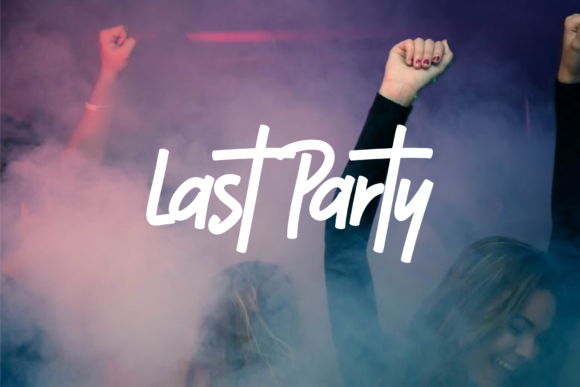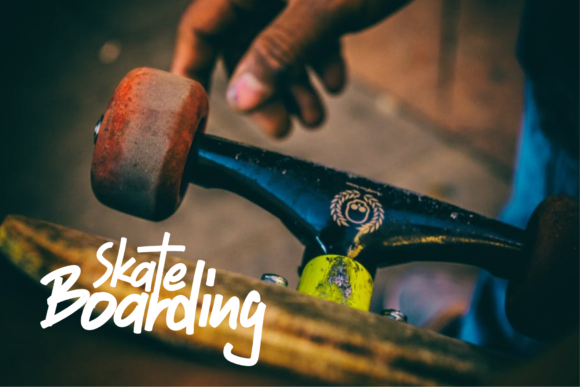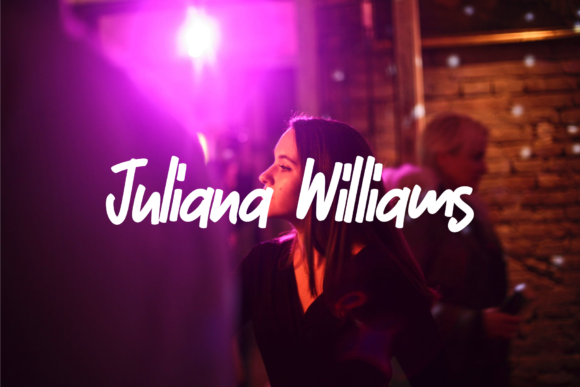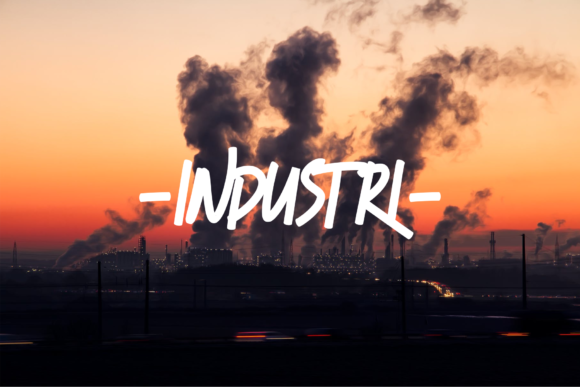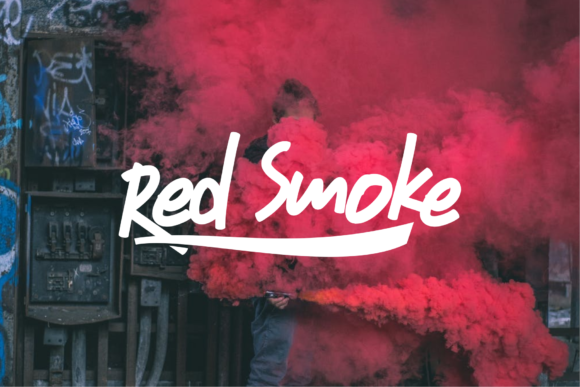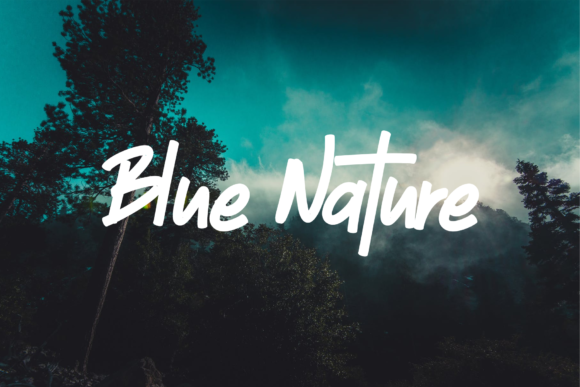
Introduction to Ristica Font
As a designer, there’s nothing quite like the thrill of bringing a creative project to life. You’ve poured over inspiration boards, brainstormed ideas, and finally settled on the perfect font to set the tone for your design. But what if you could take that font to the next level? Enter the Ristica Font, a stunning display font that’s sure to elevate your designs and leave a lasting impression.
Designed with love and care, the Ristica Font is more than just a font – it’s a reflection of the designer’s own handwriting style, imbuing each letter with a sense of personality and character. Whether you’re working on a high-quality brochure, a free download, or a complex design project, this versatile font is the perfect addition to your design resource arsenal.
Key Features of Ristica Font
- Ristica Font features a unique, modern design with a wide range of characters, including Latin and Cyrillic scripts.
- This font is perfect for use in graphic design, digital art, and other creative projects where a high-quality font is required.
Honest Review: Ristica Font
Here are some of the things that work well with the Ristica Font:
- ✨ Beautifully designed characters with a unique flair
- ✨ Supports a wide range of languages, making it a great resource for international projects
- ✨ Great for creating eye-catching headings and titles
- ⚠️ No bold or italic versions available
Overall, I’m impressed with the Ristica Font and I would recommend it to anyone looking for a high-quality, free design resource. While it may have some limitations, the benefits far outweigh the drawbacks.
Tips for Getting the Most Out of Ristica Font
For the best results, use Ristica Font with a transparent background to give your design a clean and modern look. Experiment with different font sizes and styles to add visual interest to your project. This versatile font is perfect for a wide range of creative projects, from logos and branding to digital graphics and print materials.
Ristica Font is ideal for use in digital graphics, logos, and branding materials. Its modern and sleek design makes it perfect for creative projects that require a high quality, professional look. Whether you’re designing a website, creating a social media campaign, or developing a marketing strategy, Ristica Font is a valuable design resource to have in your toolkit.